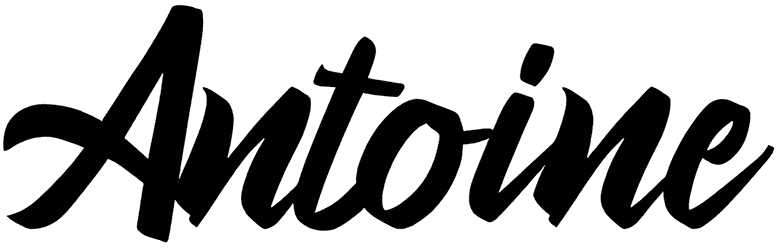
Antoine Font
Antoine font is a combination of hand-written and brush fonts. This script font can be a good excuse for holding martial arts classes such as kung fu and judo and using it in poster and flyer design. In addition, you can use it in designing many of the friendly and personal themes you need, such as developing a sketch pad.